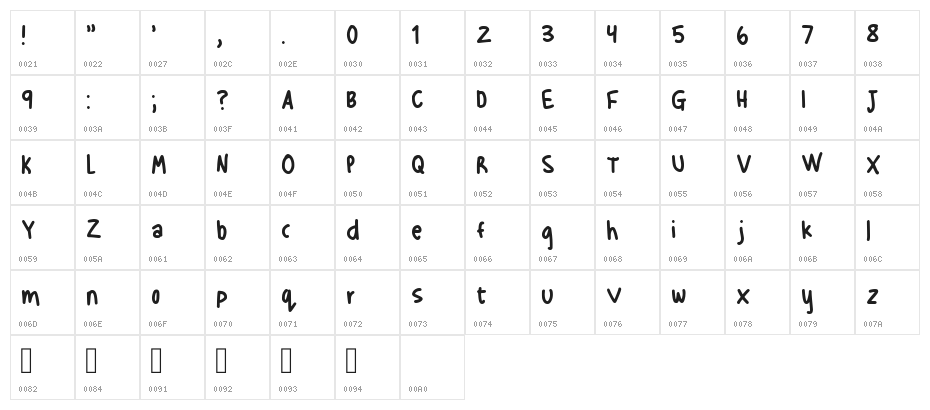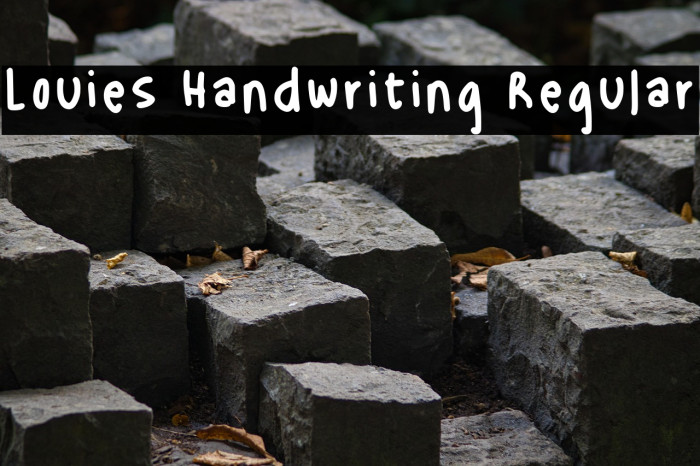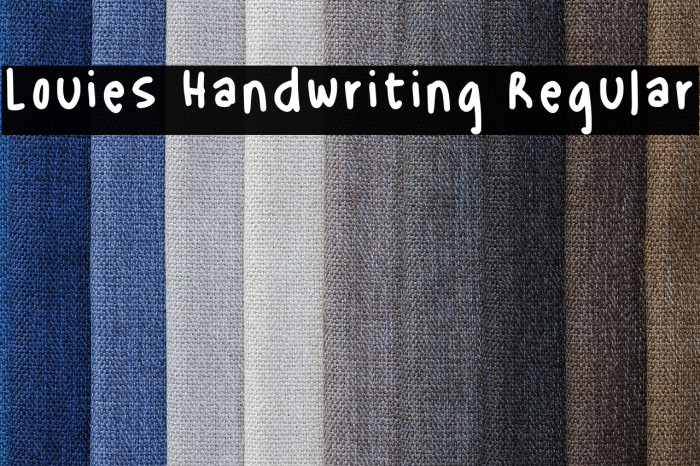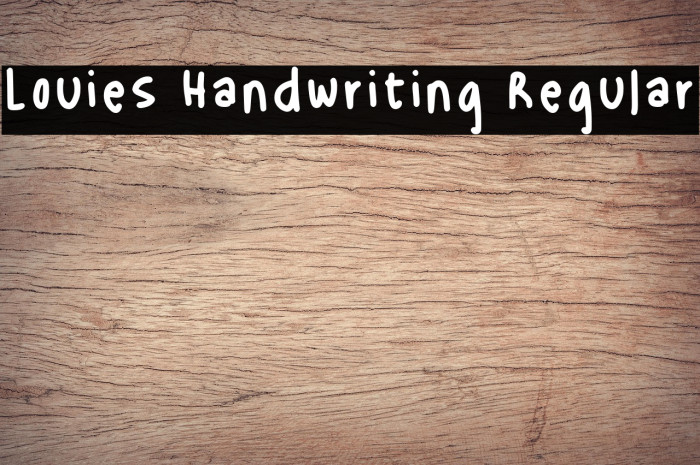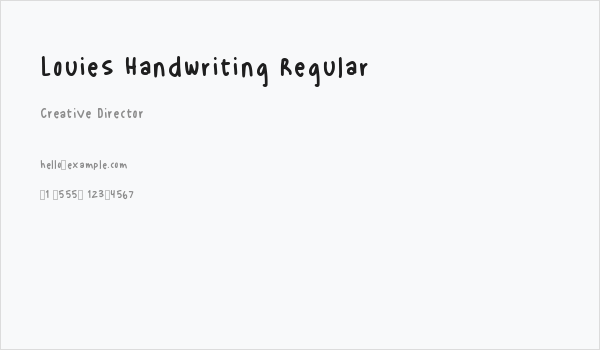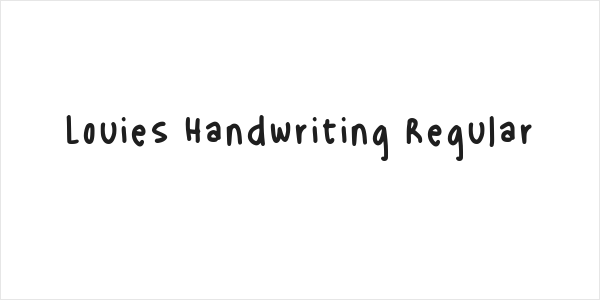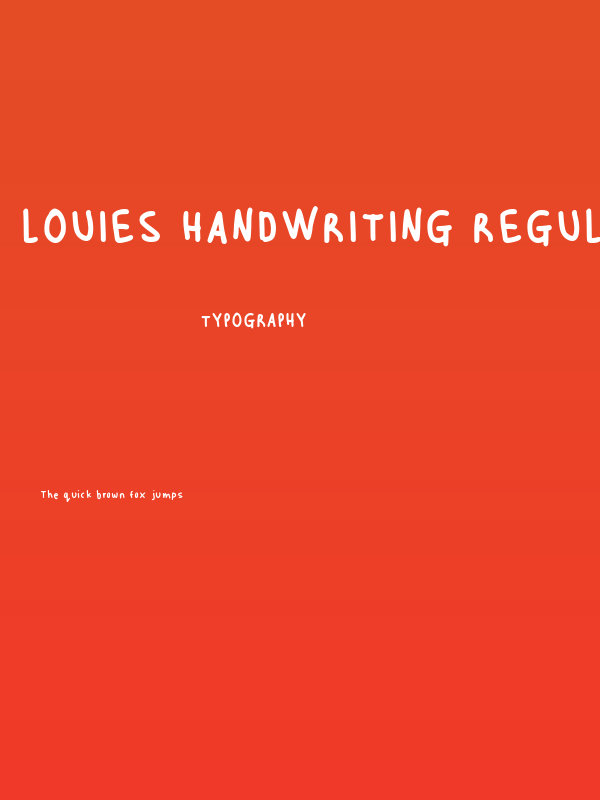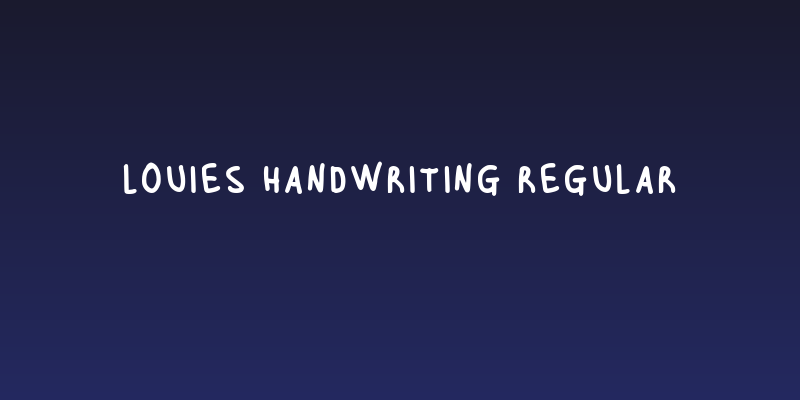
Louies Handwriting Regular Font
Louies Handwriting Regular Description
A playful, informal handwritten typeface with rounded edges and irregular character shapes, mimicking natural handwriting. The strokes are consistent in thickness, and the overall appearance is friendly and approachable.
| Overall Style | Playful, Informal, Friendly |
| Use Case | Headlines, Short text, Logos, Invitations |
| Proposed Projects | Children's books, greeting cards, informal branding, posters, social media graphics. |